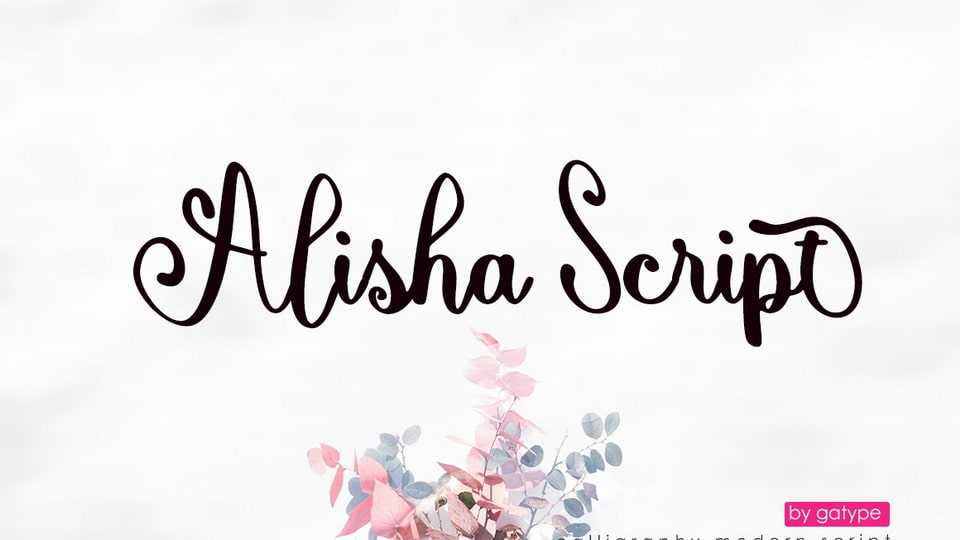
Alishan Script Font › Fontesk – Download Grátis
Download Alishan Script font, the script has been given a combination of fantasy and handwritten ink. Perfect for wedding designs, branding materials, blog titles, quotes and invitations, business cards.